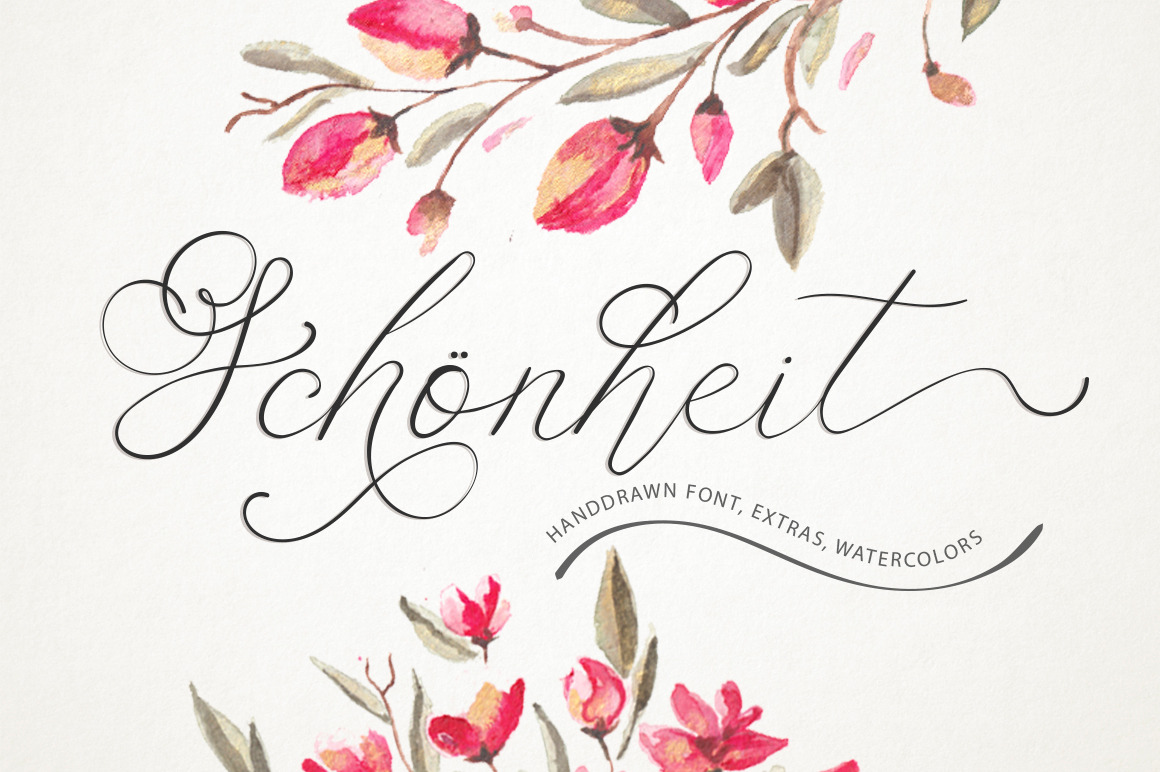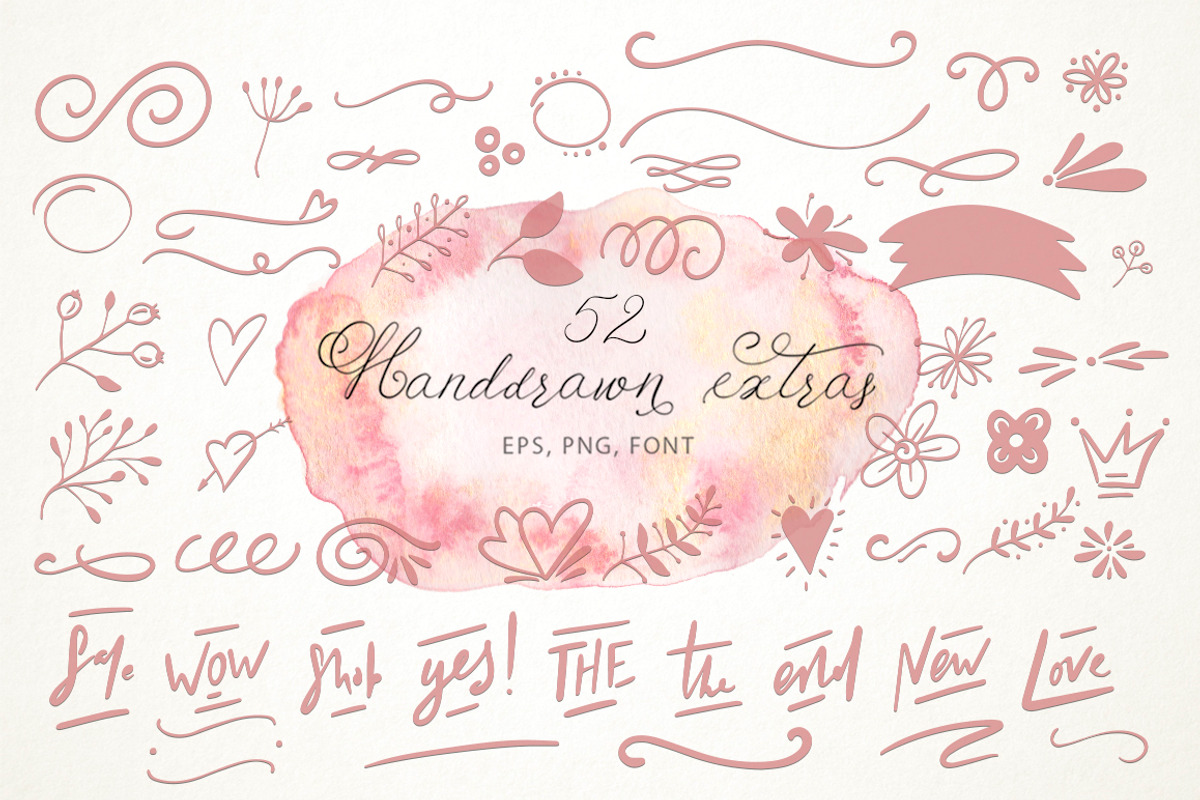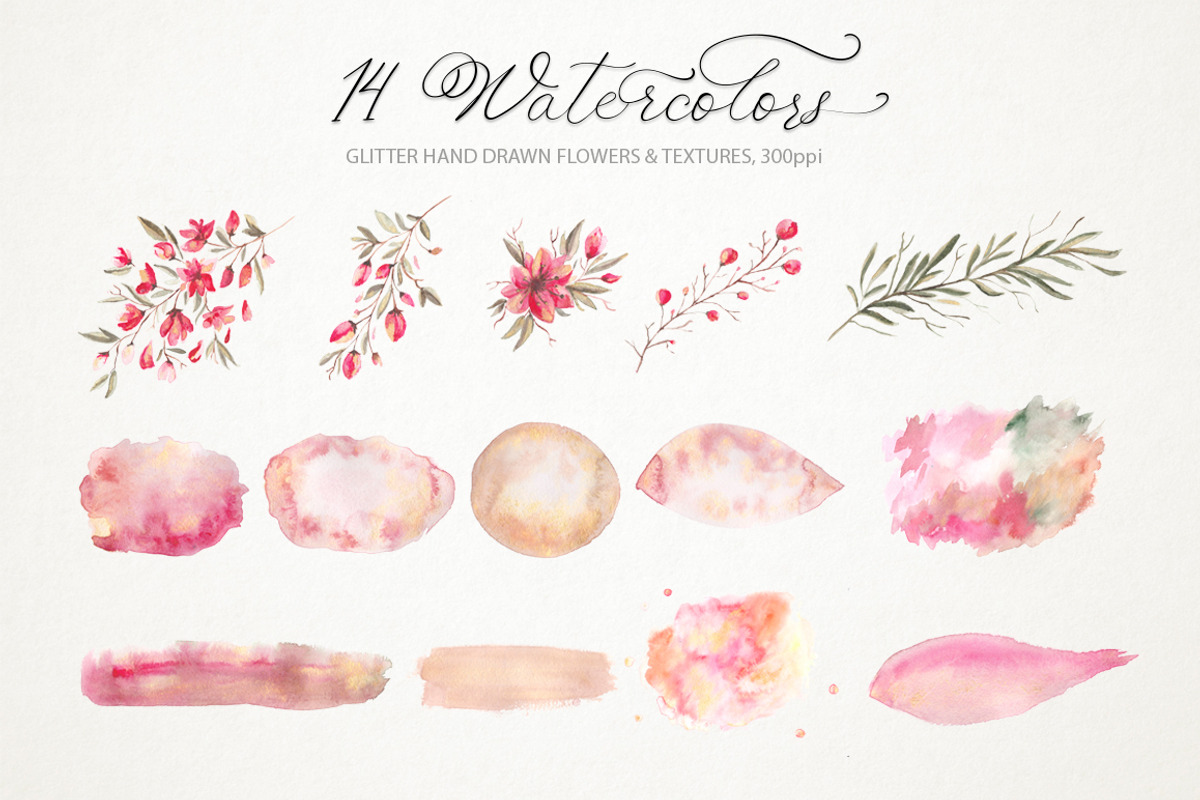
Schönheit font & watercolors.
Schönheit is a beautiful script font with gentle character. Schönheit in translation from German means beautiful woman. And this font is really beautiful, in which every glyph is thought out with German pedantry. Gentle calligraphy and lots of OpenType features make this font an unique tool for creating handdrawn texts, which are written by hand.
Uppercase letters have amazing swashes, lowercase letters have 3 stylistic alternates, as well as initial and final letters for all lowercase glyphs. Double letters ligatures are also included.
That's not all :) Bonus - 14 beautiful watercolor handdrawn flowers & textures.
- Schönheit Extras Font (OTF, TTF, WOFF, WOFF 2). It’s the additional font with decorative swashes and doodle ornaments.